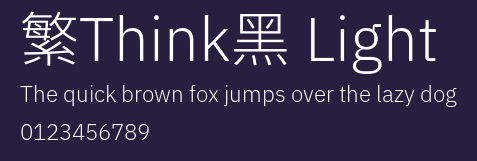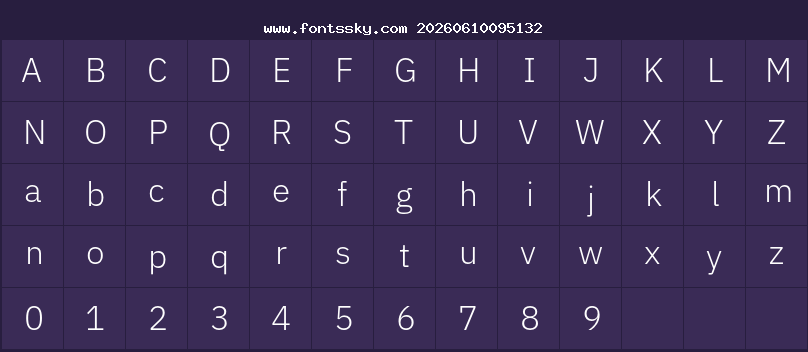
繁Think黑 Light Preview
• Font Name: 繁Think黑 Light
• Full Font Name: 繁Think黑 Light
• PostScript Name: FanThinkGrotesk-Light
About 繁Think黑 Light.otf
繁Think黑 Light.otf is a modern, elegant sans-serif font designed for ultimate readability and visual harmony. Perfect for branding, headlines, web design, and print materials.